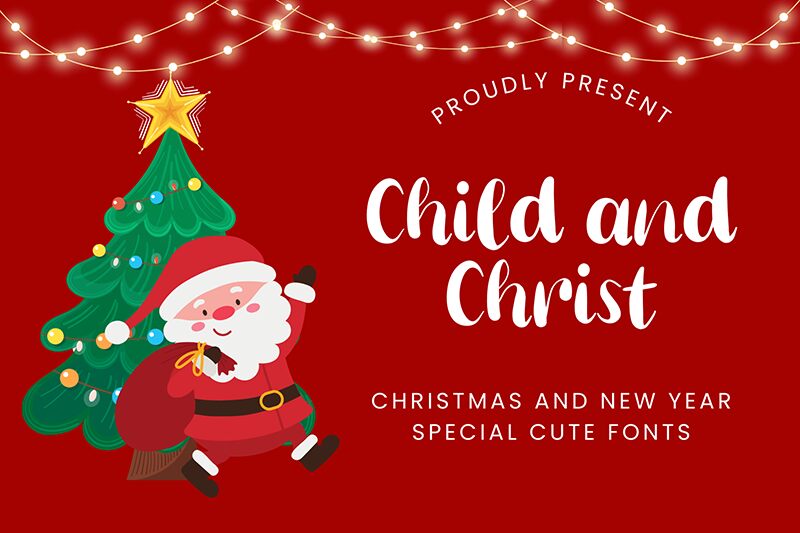
Child and Christ
Child and Christ font by Sarif Letter is a bold brush font presenting curling flourishes, smooth transitions, and casual elegance. A soft vintage vibe is also present in its characters which enhances their friendly appearance.